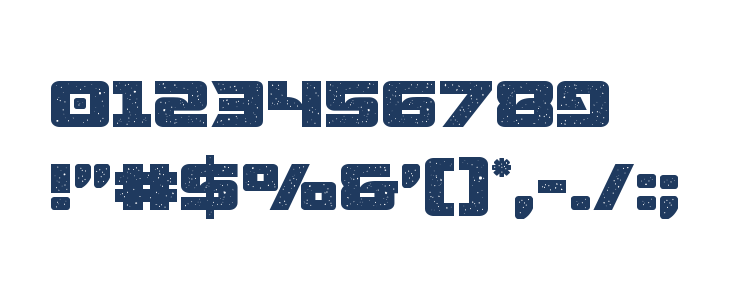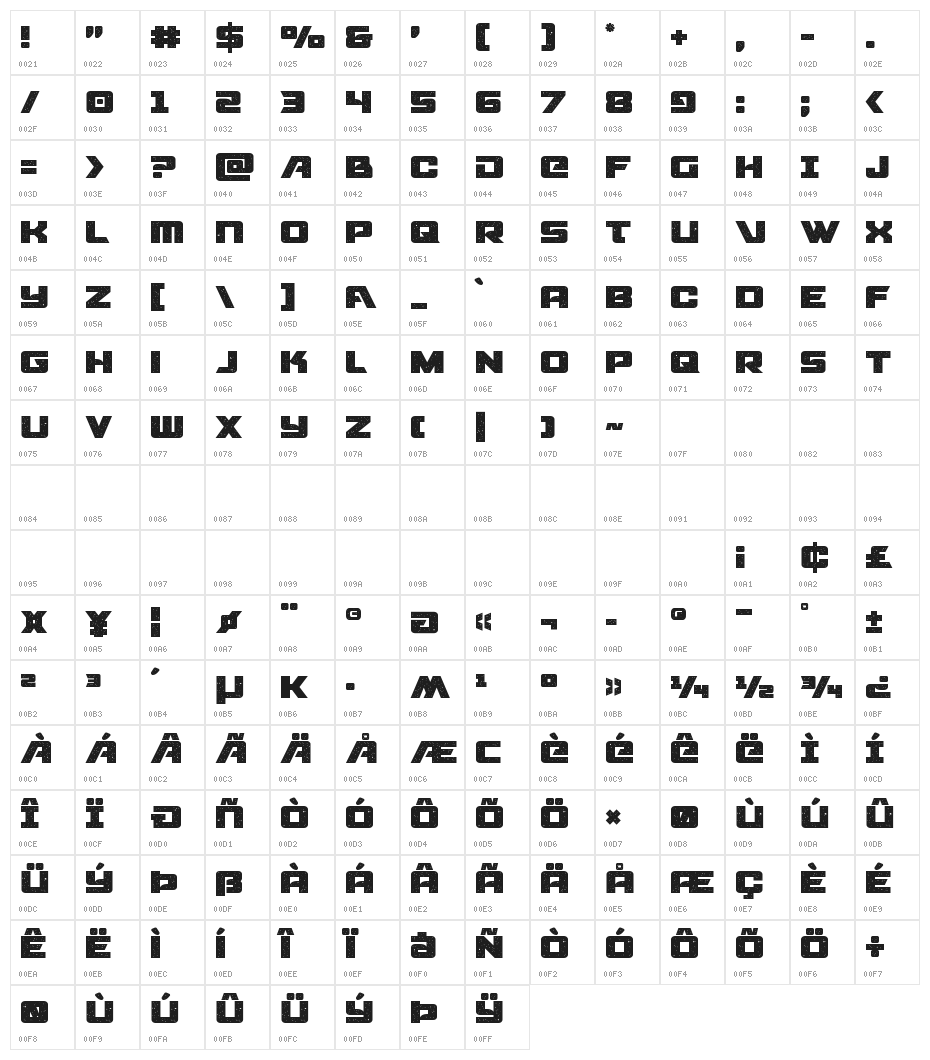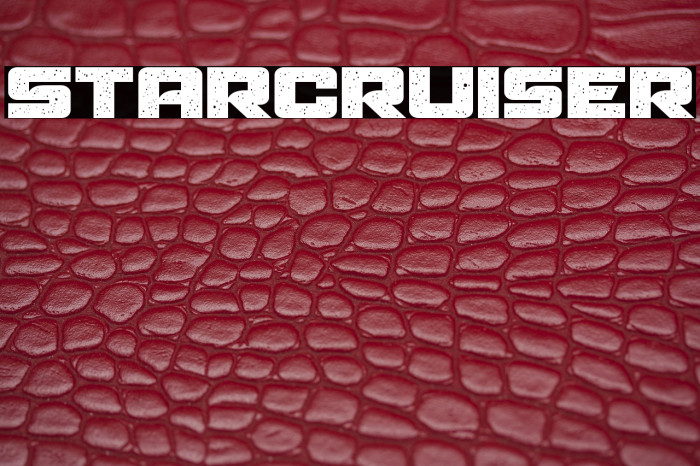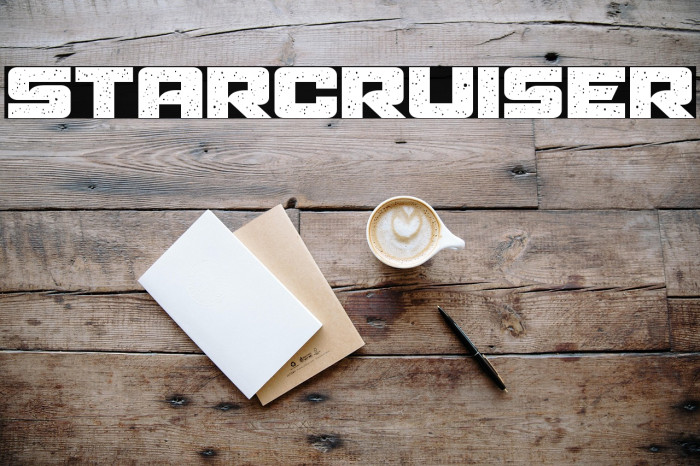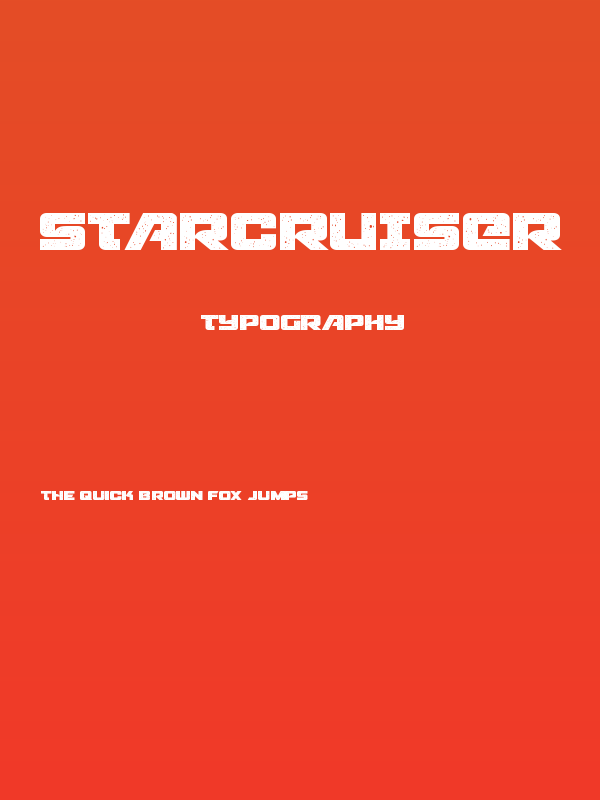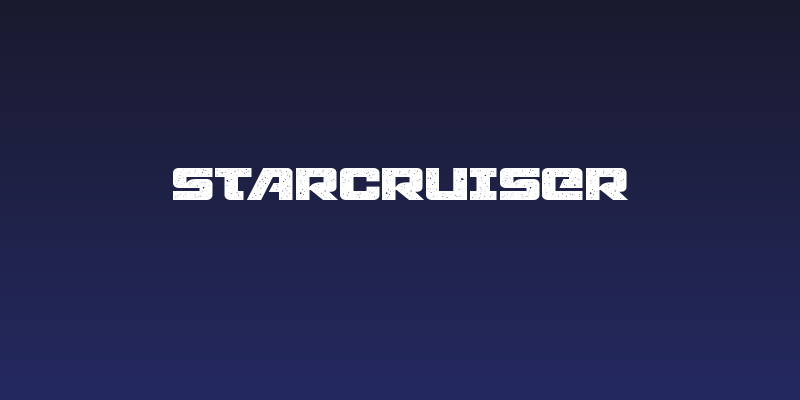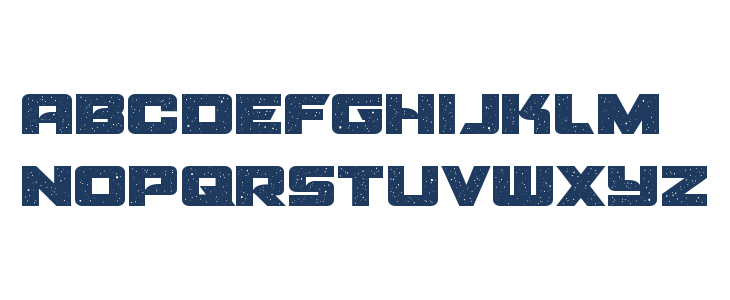
Starcruiser Font
Starcruiser Description
This font features a bold, futuristic design with a distinct space-themed aesthetic. The characters are blocky and geometric, with sharp angles and a solid presence. Each letter and number is filled with a starry pattern, adding a cosmic texture that enhances its sci-fi appeal. The uppercase and lowercase letters maintain a consistent style, ensuring uniformity across different text applications. The special characters complement the overall design, making it suitable for creative and thematic projects.
| Overall Style | Futuristic, Decorative |
| Proposed Projects | Ideal for sci-fi movie posters, space-themed event invitations, video game titles, and futuristic branding. |